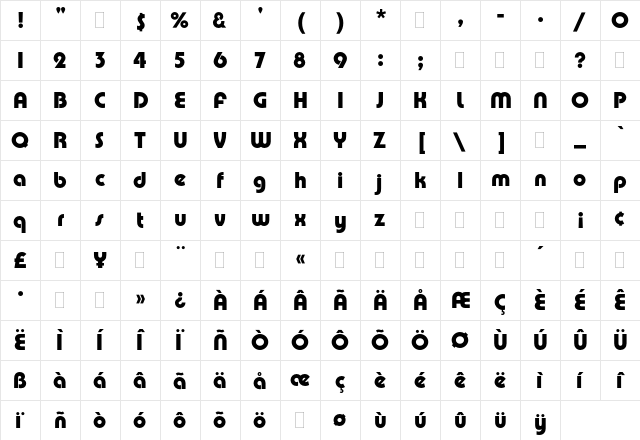
Pump Demi Bold Plain
Design Context for Pump Demi Bold Typeface
Pump Demi Bold offers clean, dependable letterforms without strong stylistic allegiance, making it a practical choice for designers who need flexibility. The heavy weight commands attention and anchors typographic hierarchies.
Pro Tip: Use Pump Demi Bold in both headline and body roles to test its range before committing to a single application.